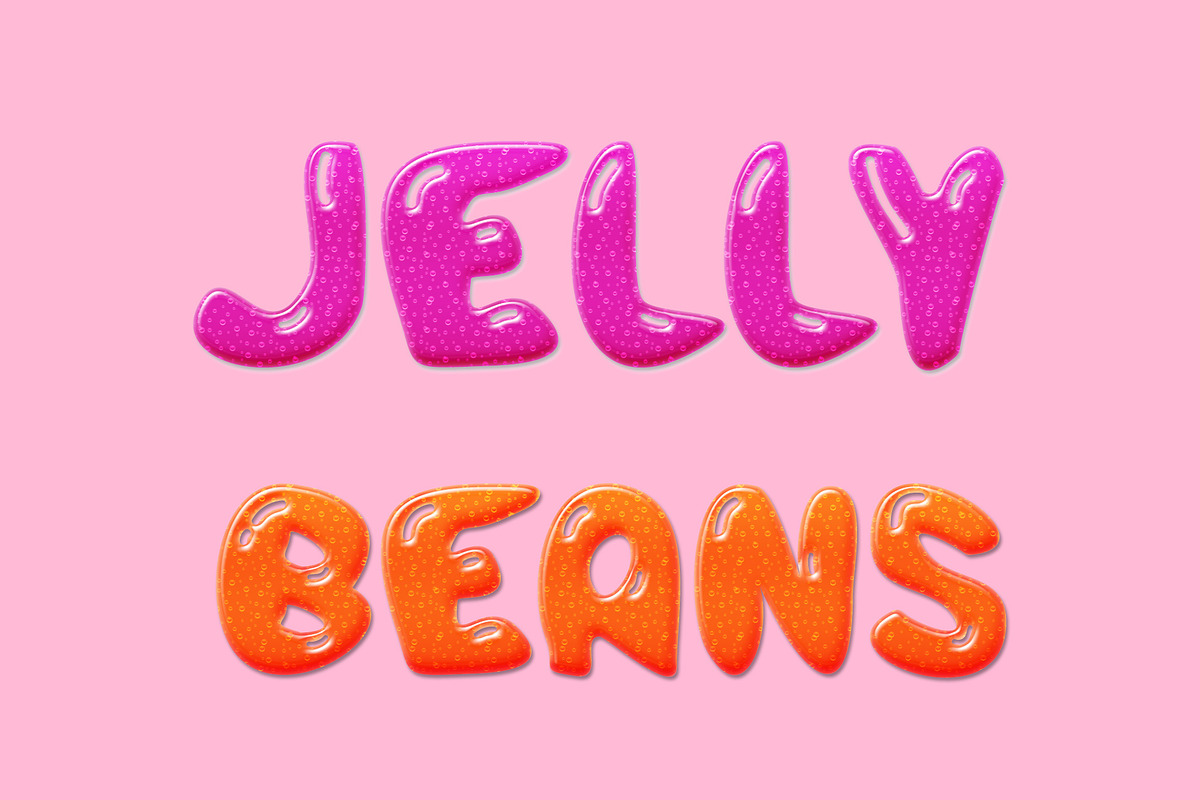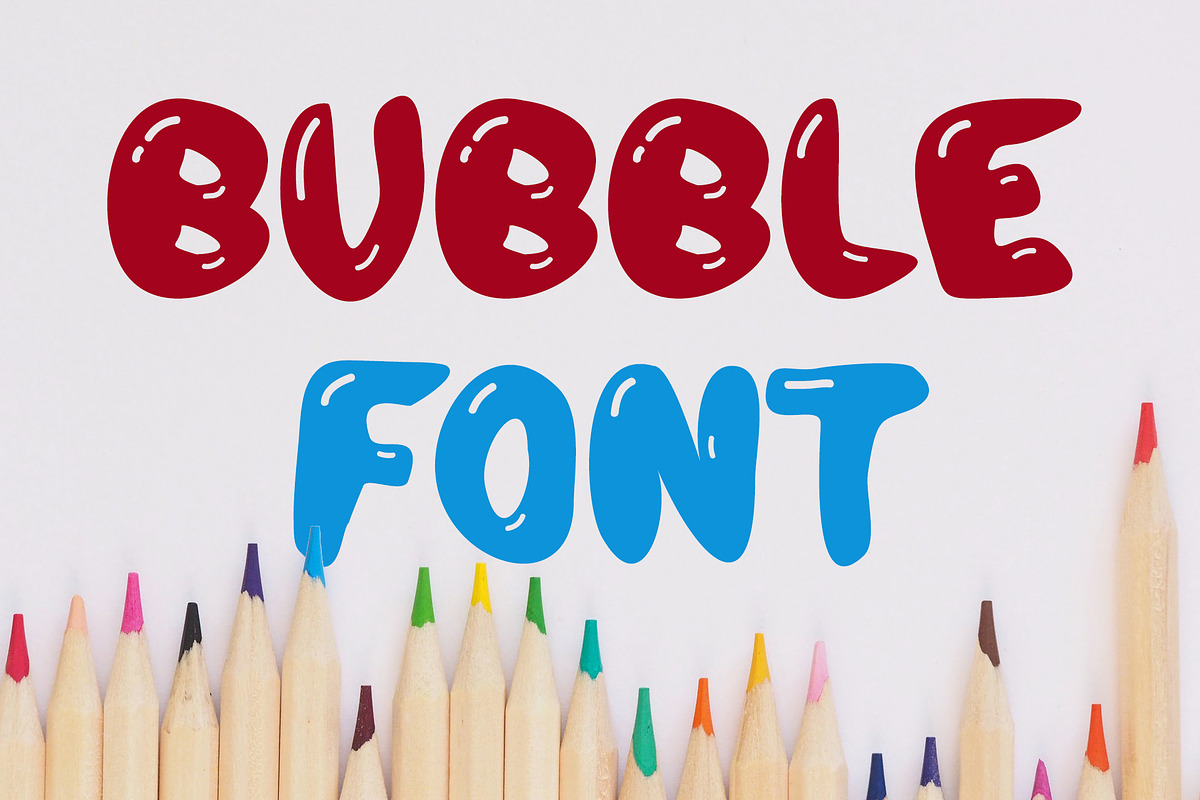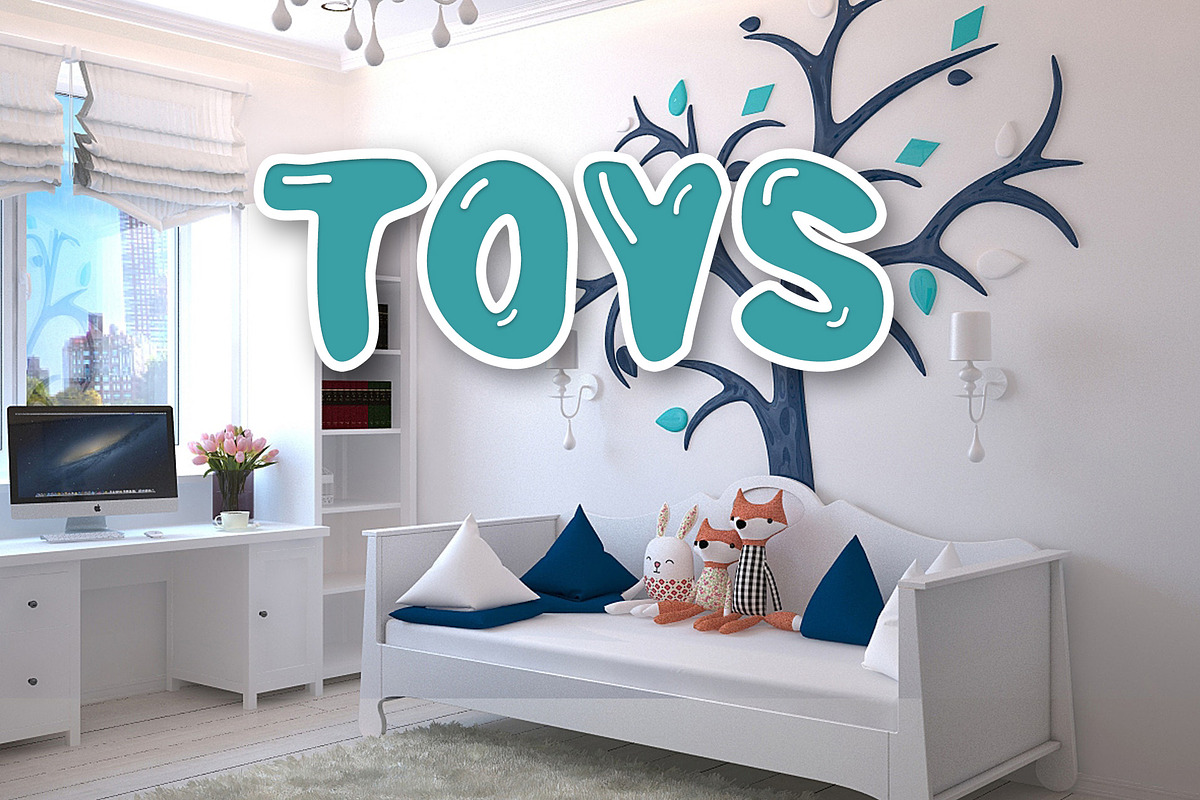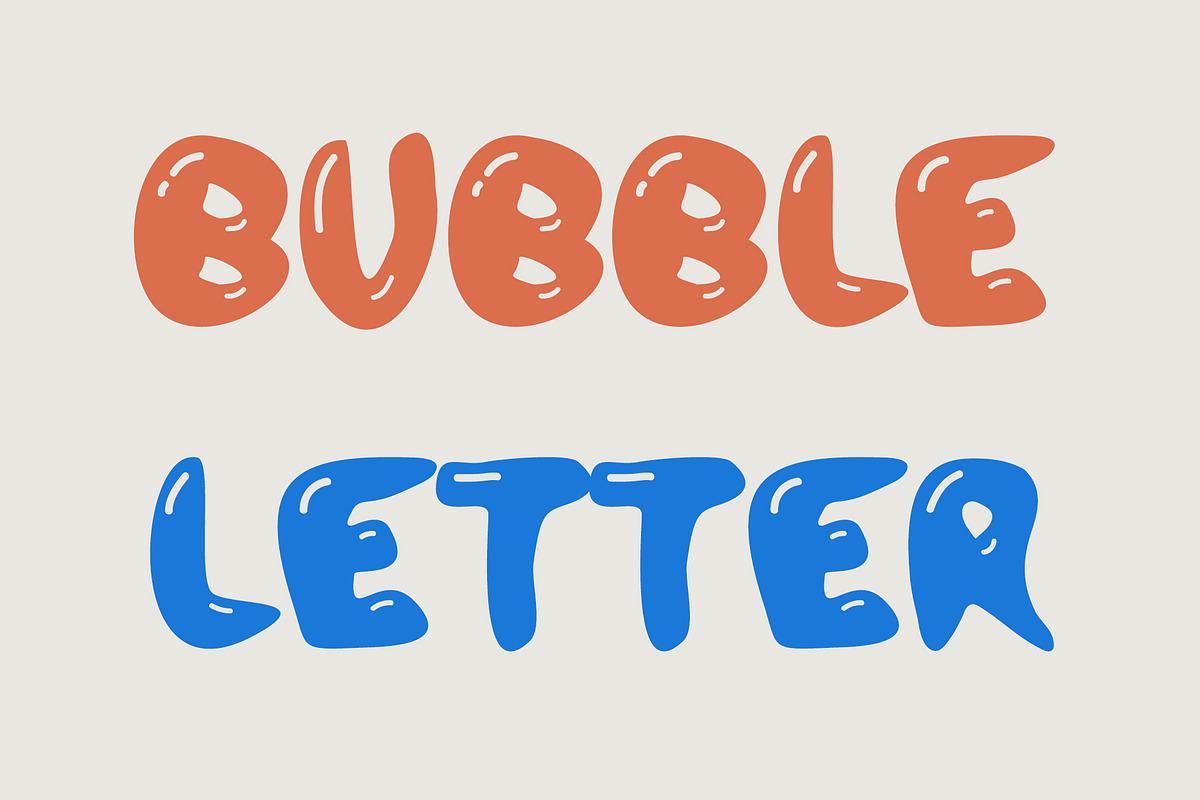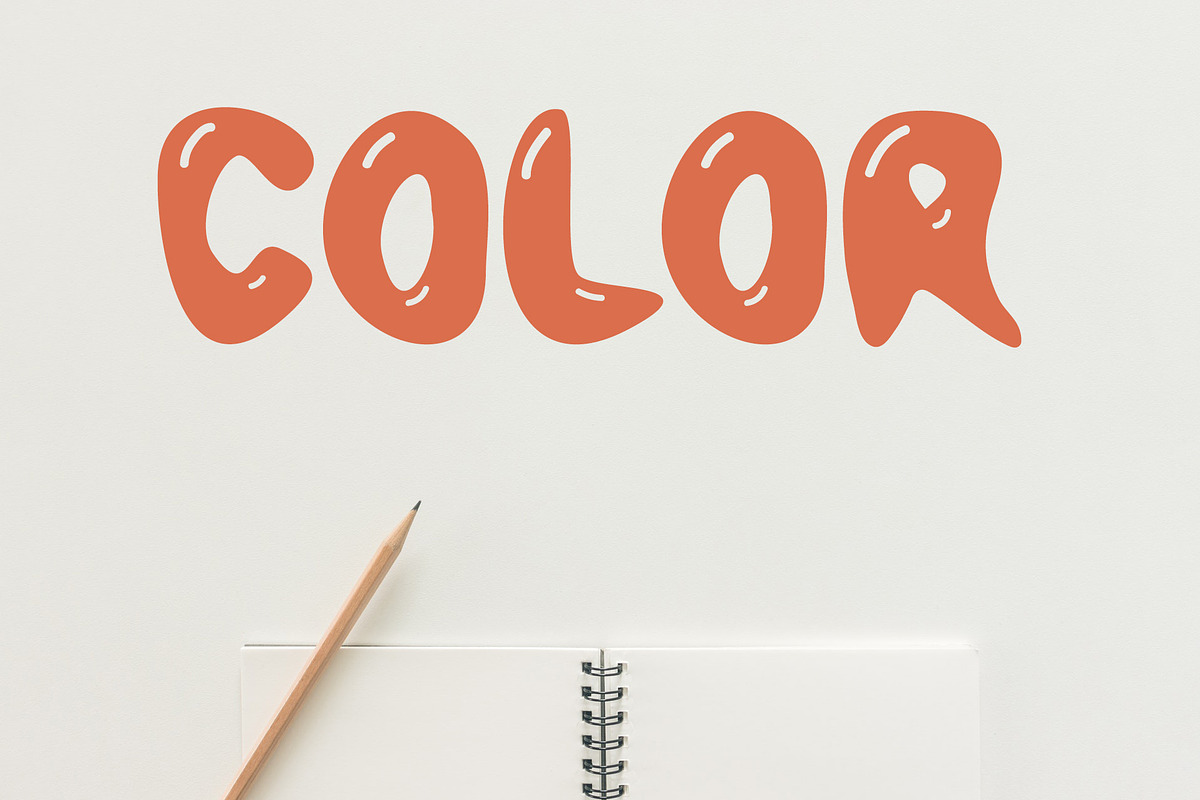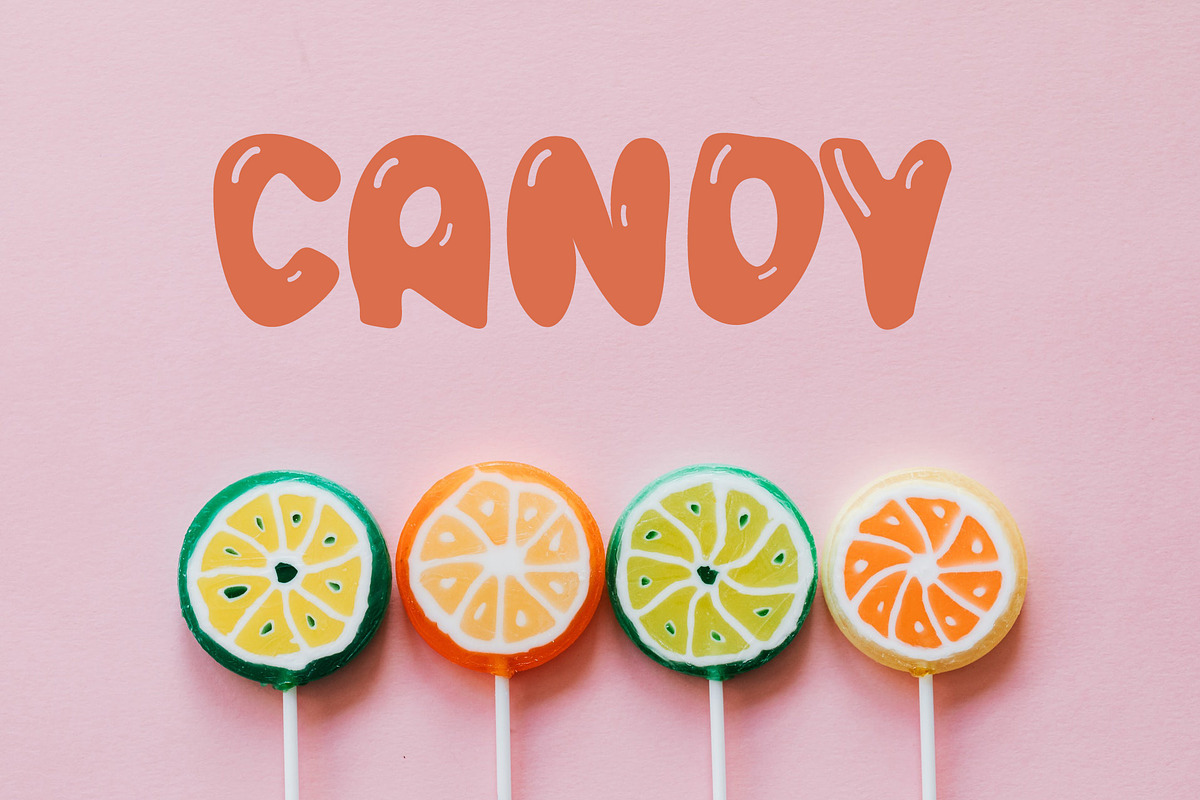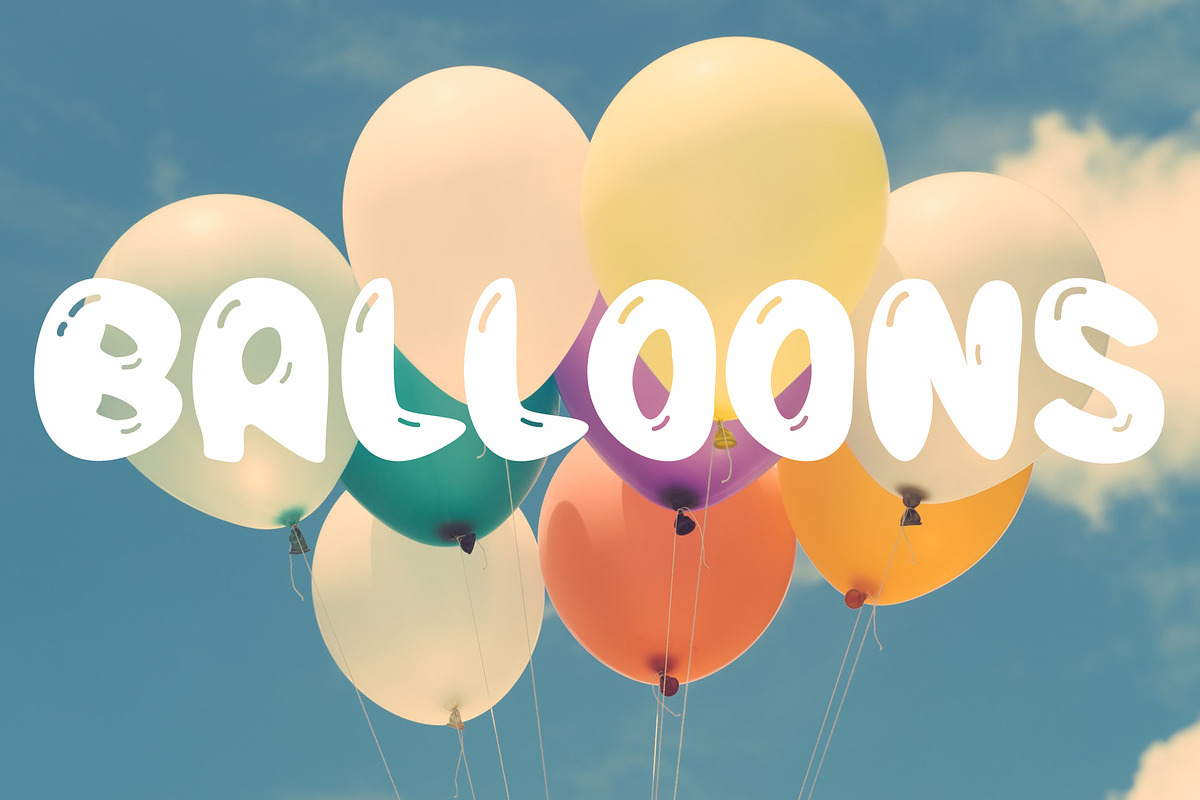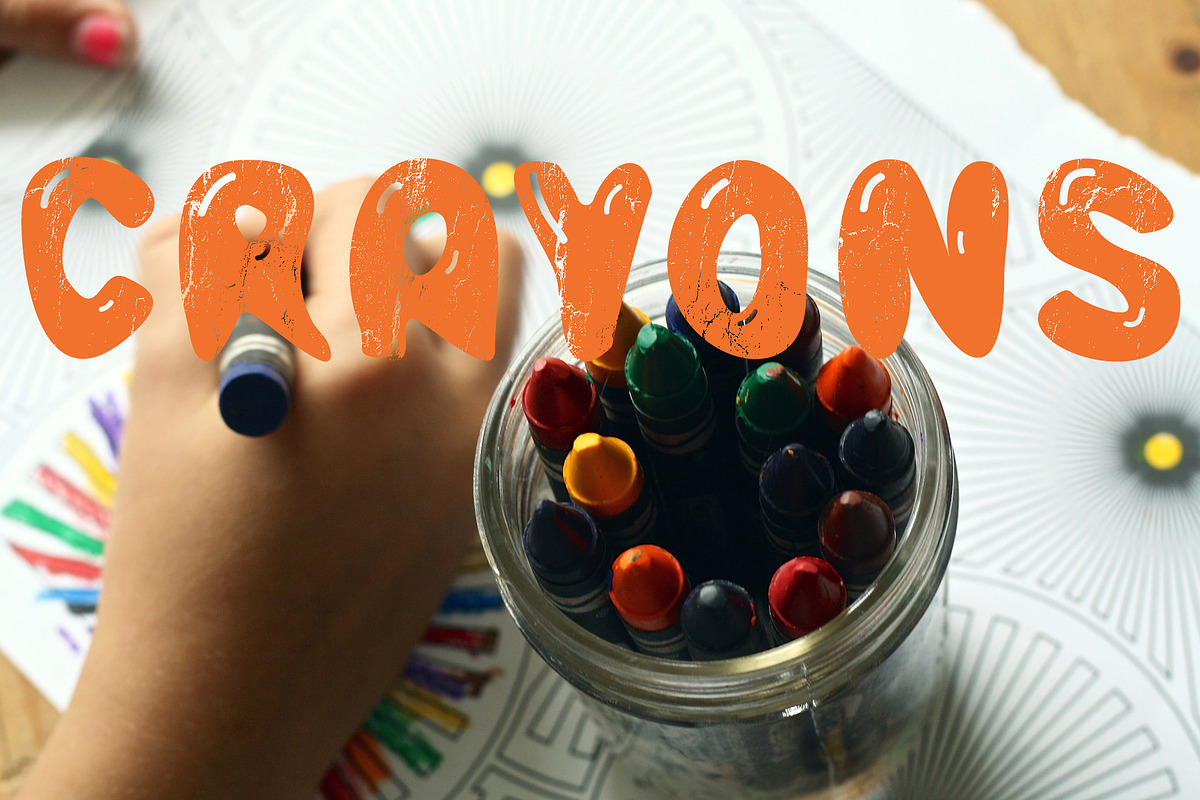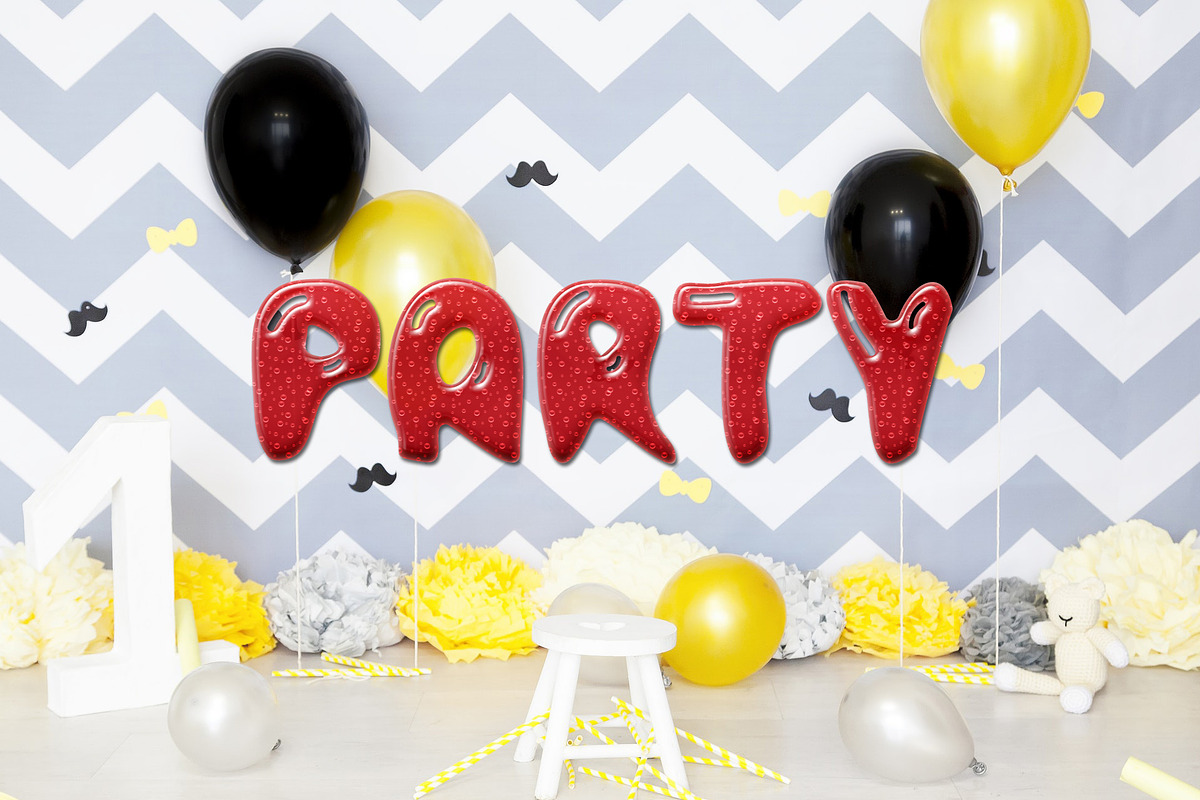
Bubble Letter Font
Bubble Letter is comic type with balloon effect.
Bubbly type for fun events.
Bubble is a fun and thick lettered display font. Sweet and friendly, this font will become your go-to font for and children or school creation!
It uses comic jelly bean effect.